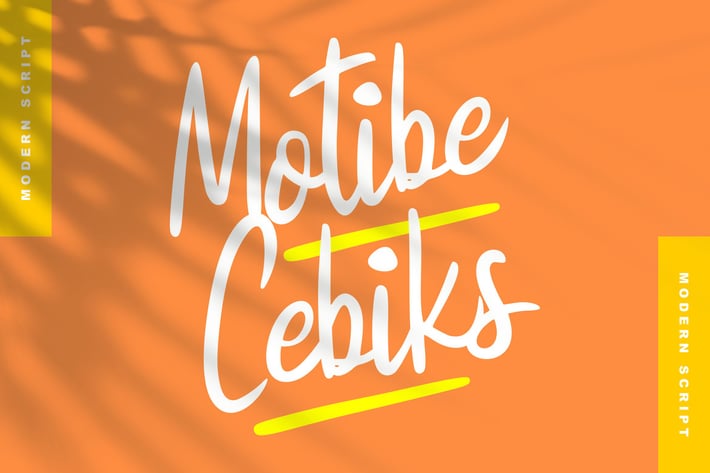
Motibe cebiks | Modern Script Font
Motibe cebiks | Modern Script Font with a calligraphy style, So beautiful on invitation like greeting cards, branding materials, business cards, quotes, posters, and more!